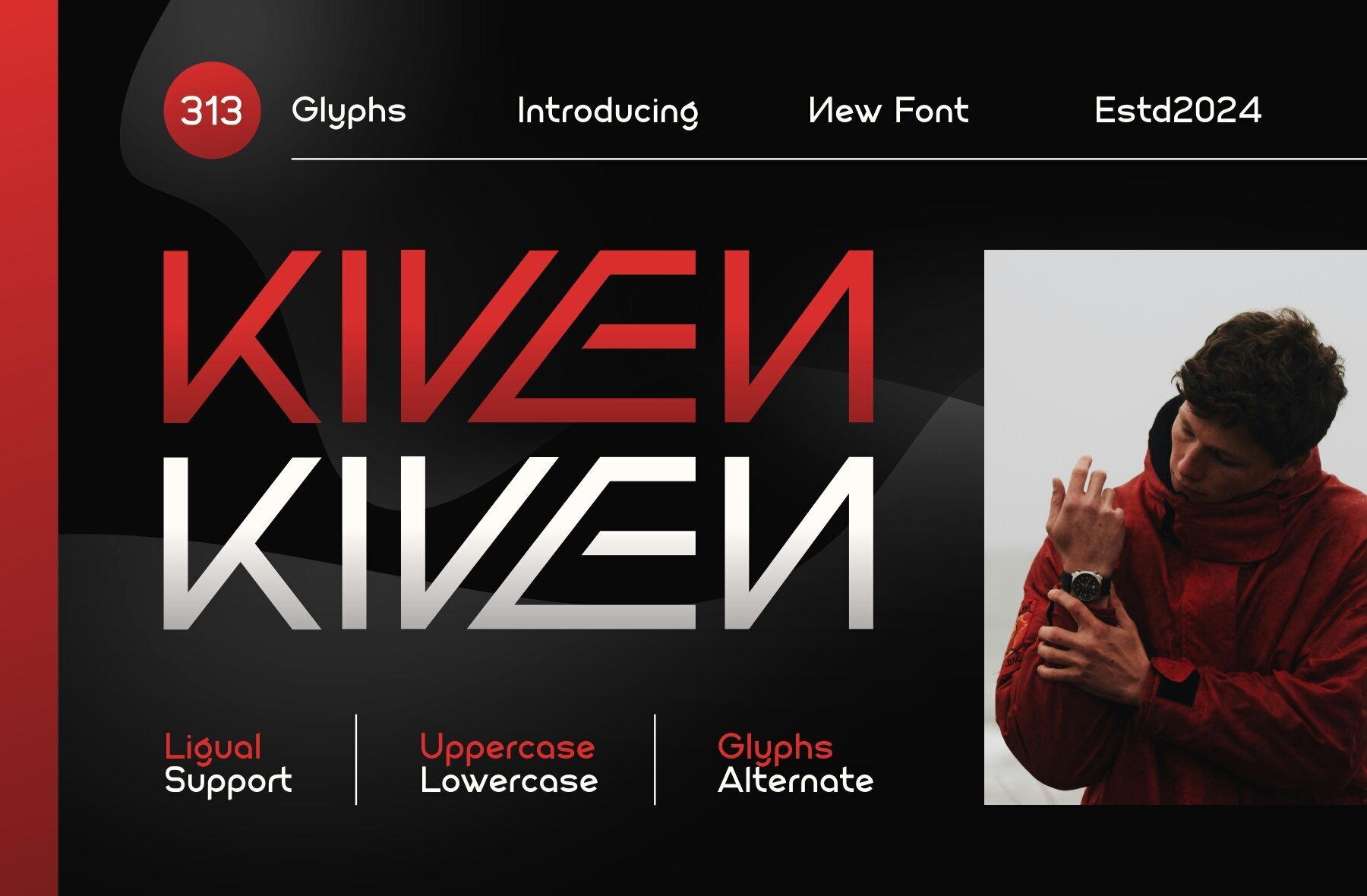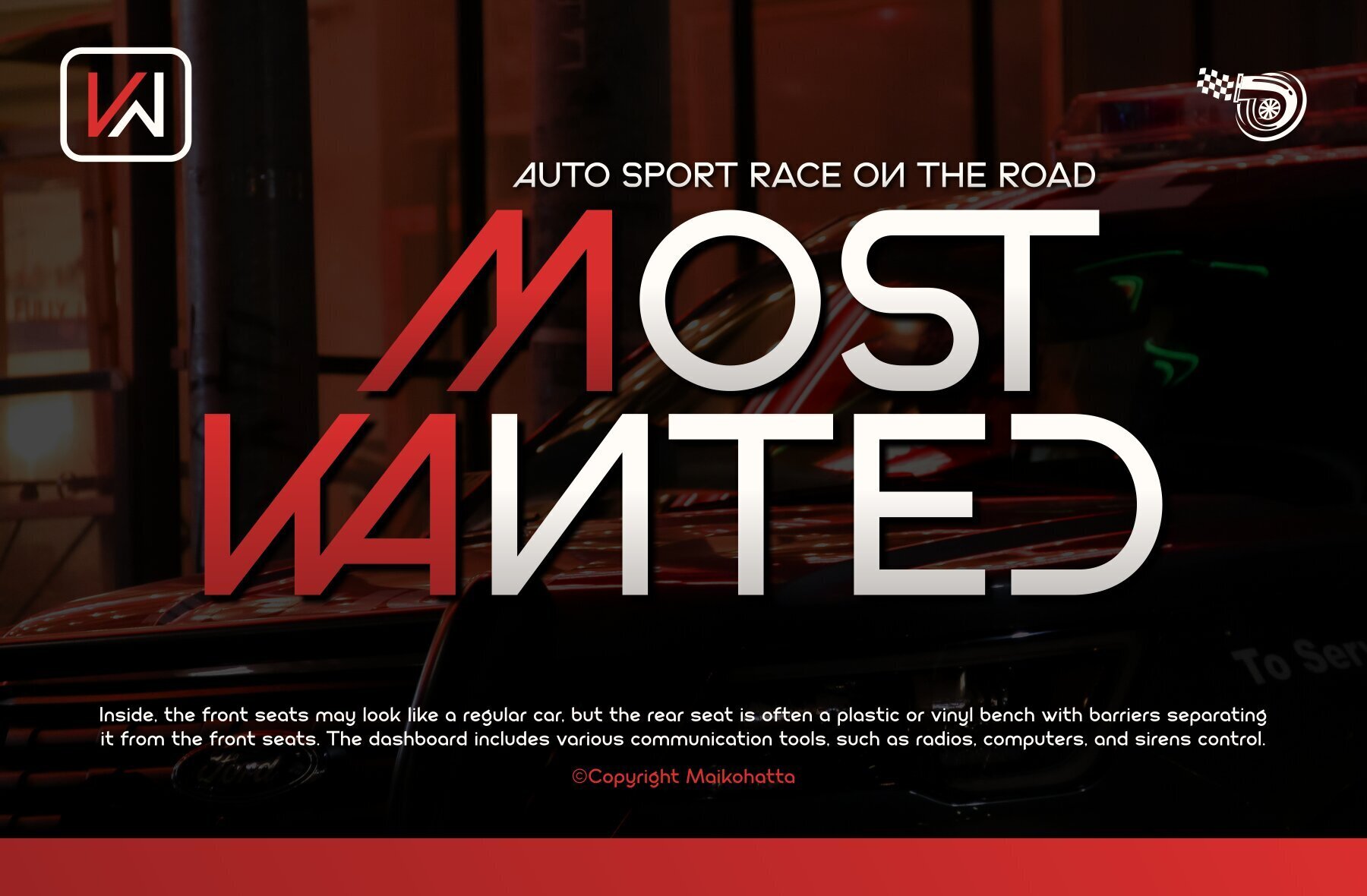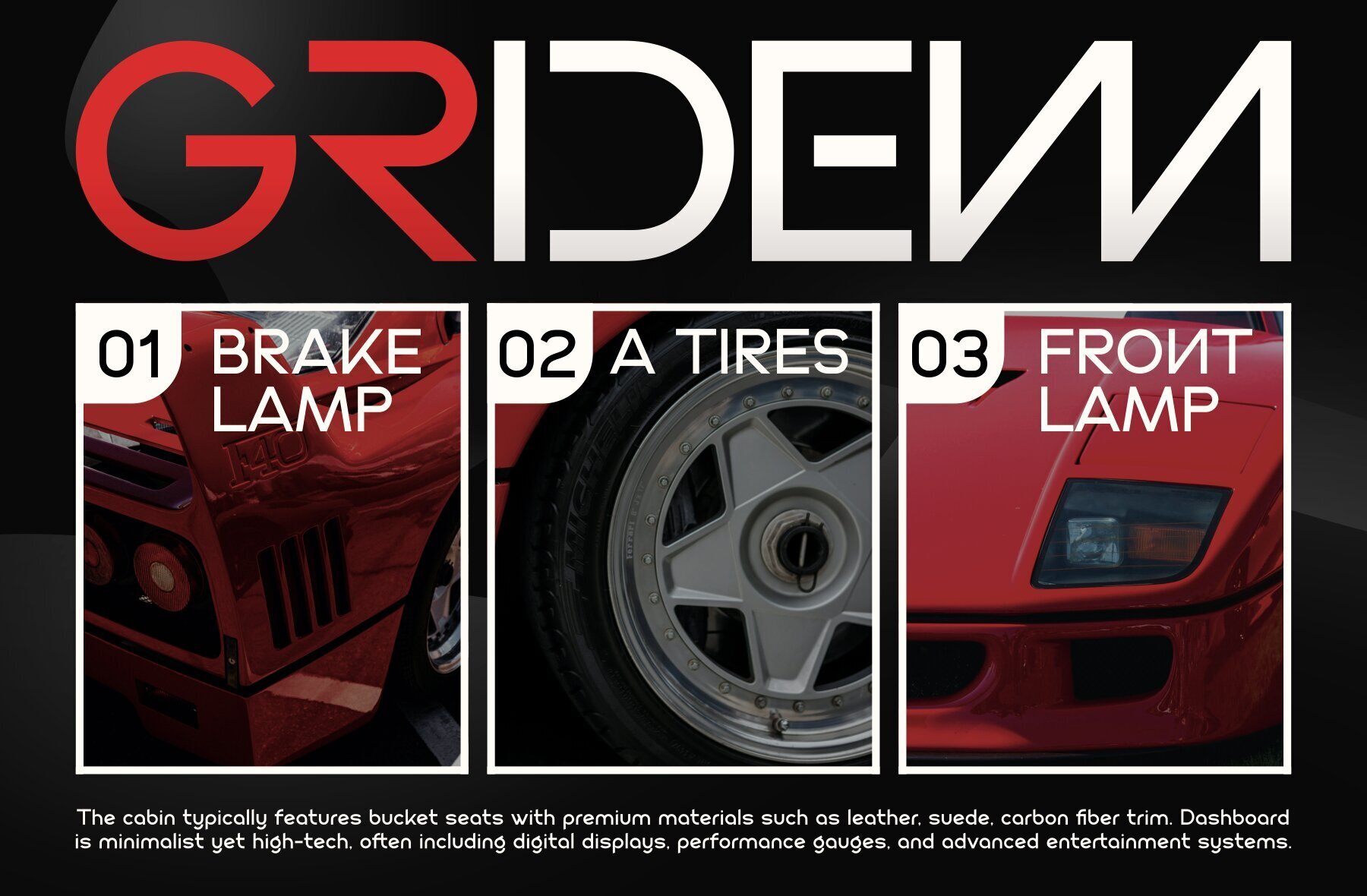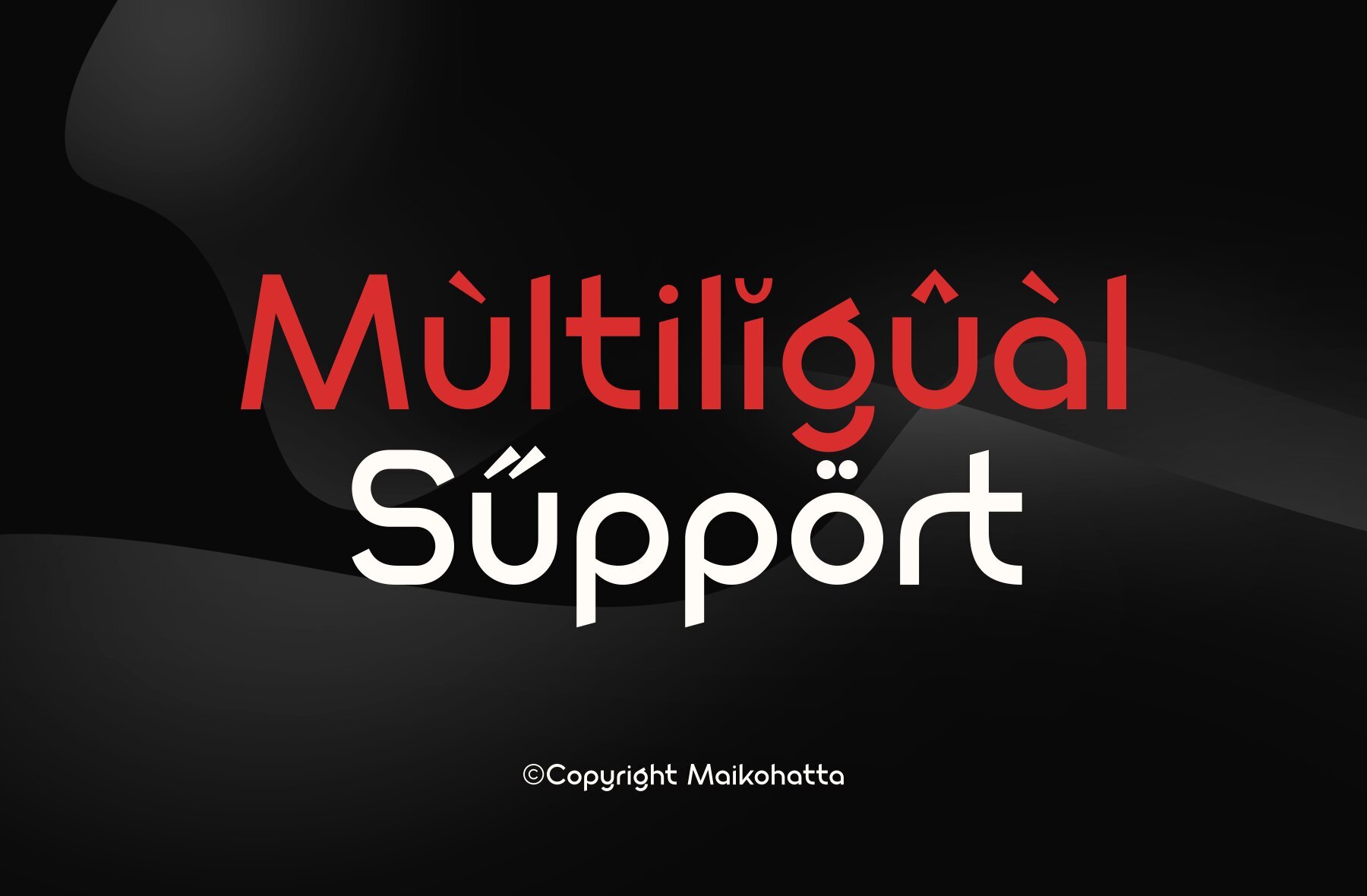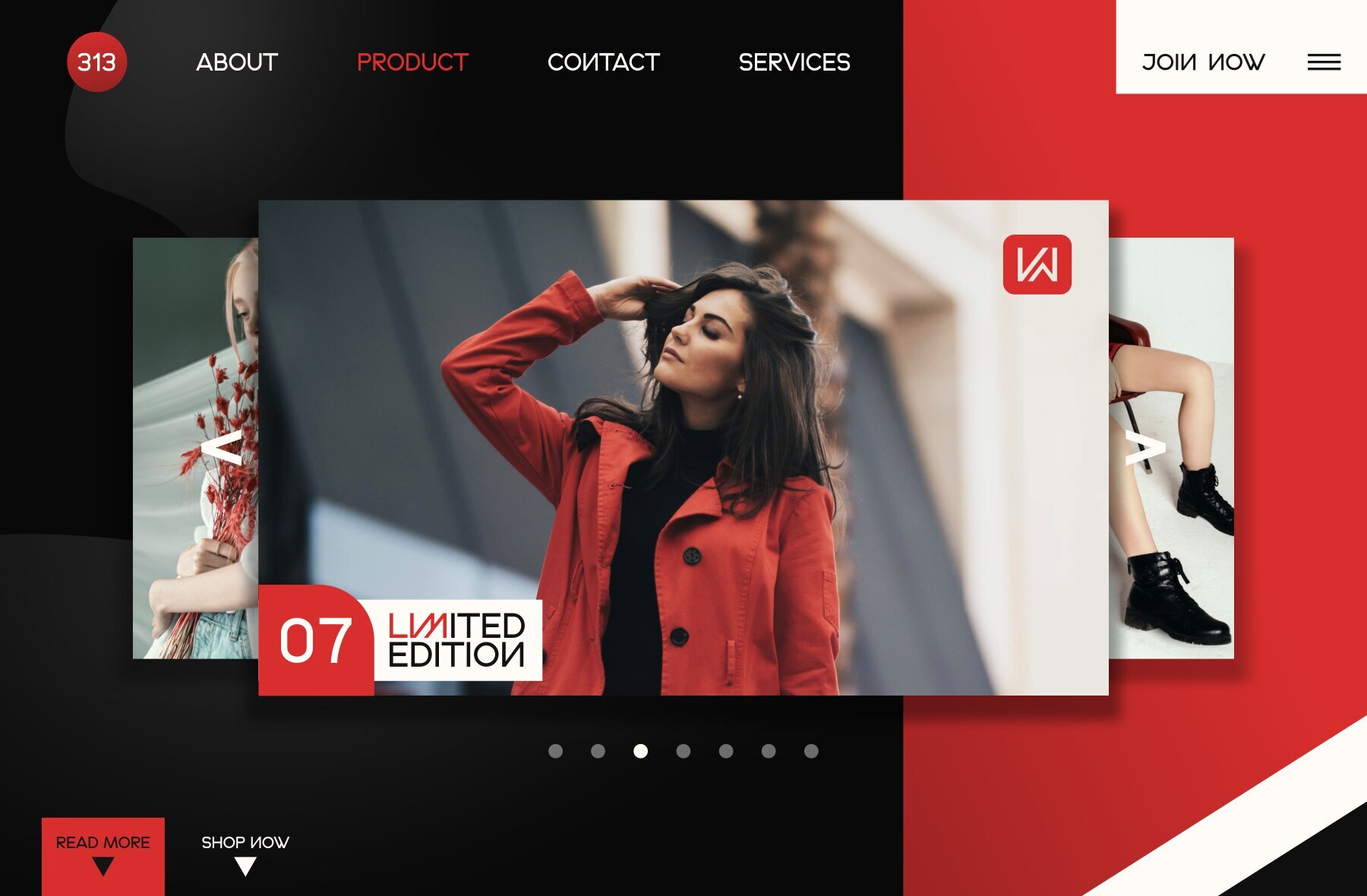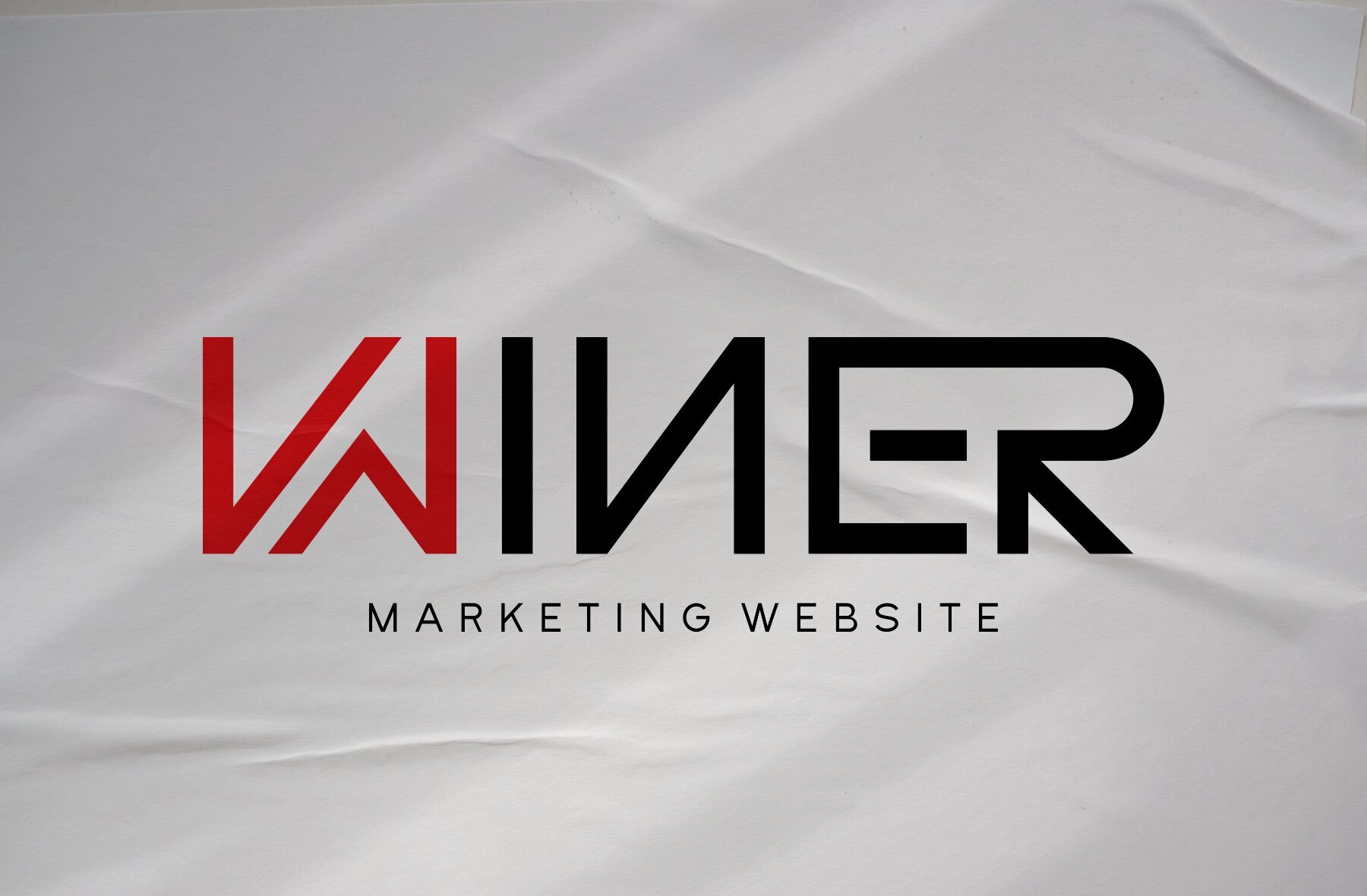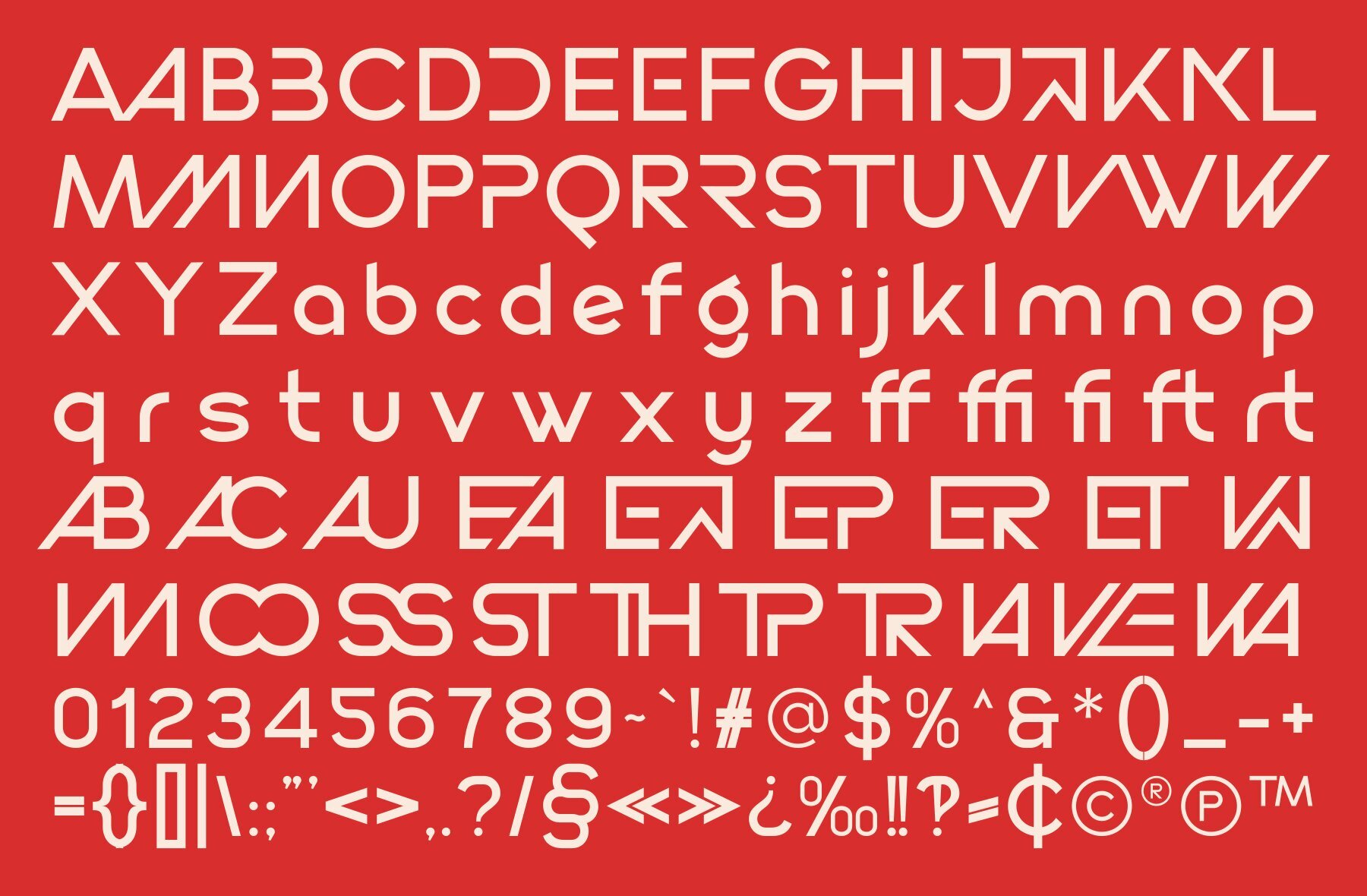
Kiven Font
KIVEN
Kiven offers a clean and contemporary appearance, ideal for modern typography and graphic design projects. Its flexibility allows it to adapt seamlessly to various design contexts, making it a versatile choice for designers seeking a professional look. The simplicity and visual appeal of Kiven ensure that it can effectively convey messages with clarity and style.
Perfect for headlines, logos, and branding materials, Kiven's modern sans serif design provides a strong foundation for creating impactful visuals. Its design elements emphasize readability and sleek aesthetics, making it suitable for both digital and print media. Whether designing for corporate settings or creative endeavors, Kiven delivers a polished and appealing result.